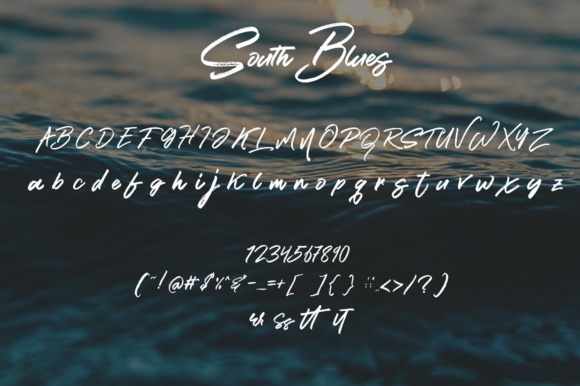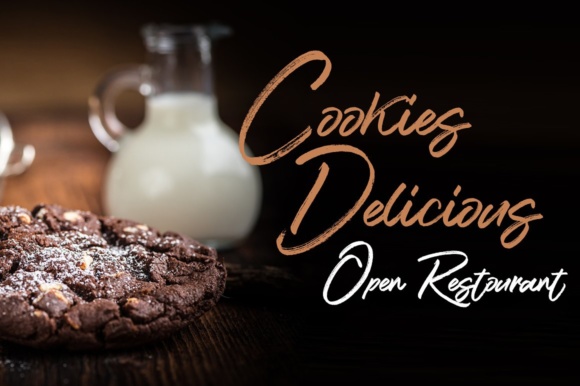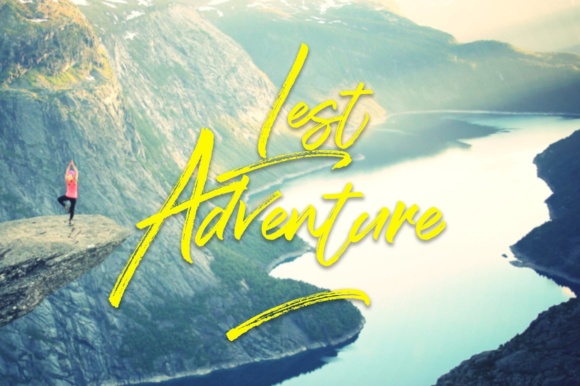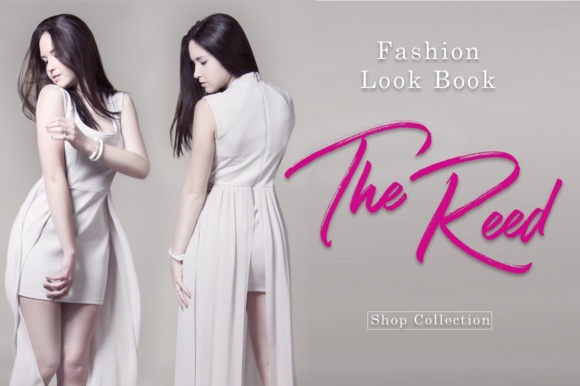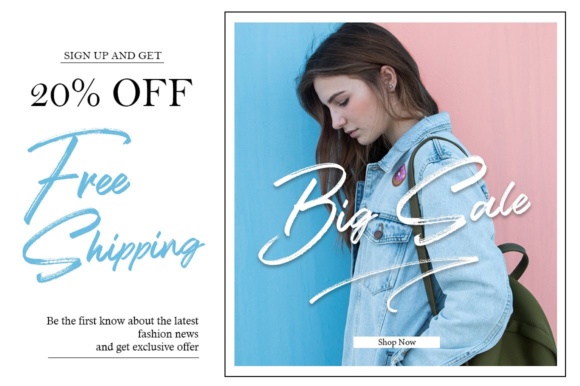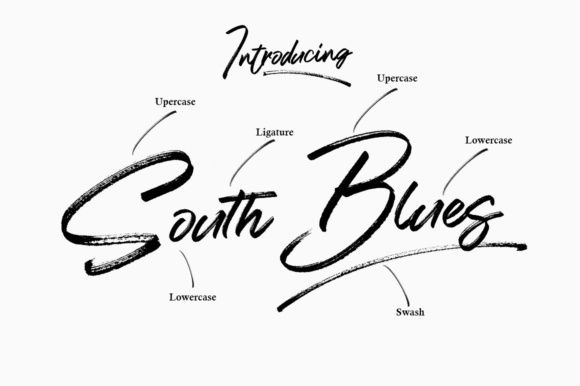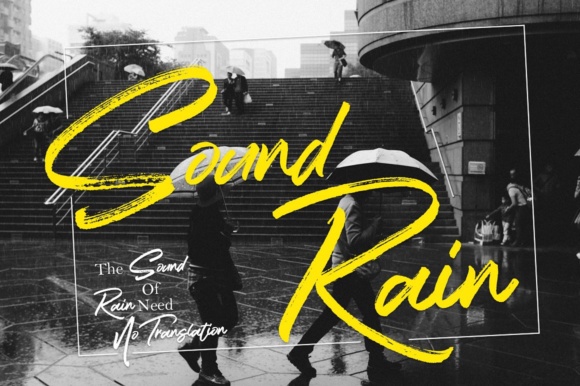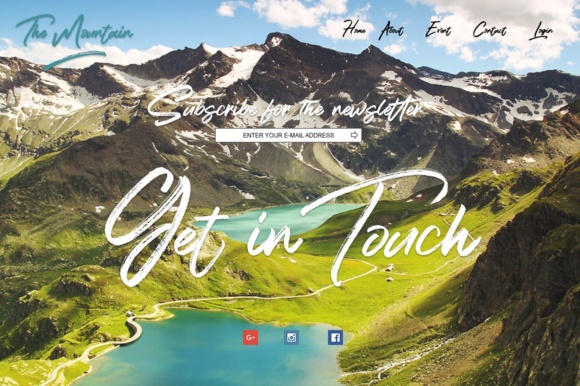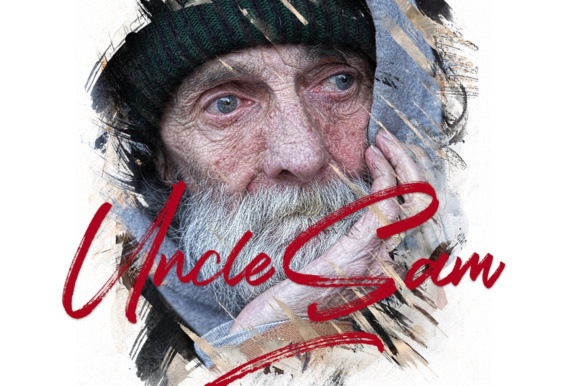
South Blue Font
About South Blue Font
The South Blue is a classy brush font with a loose flow. It combines attractive curves with a fresh urban edge; delivering a stylish script which is guaranteed to add an eye-catching appeal to your logo designs, brand imagery, handwritten quotes, product packaging, merchandise & social media posts.